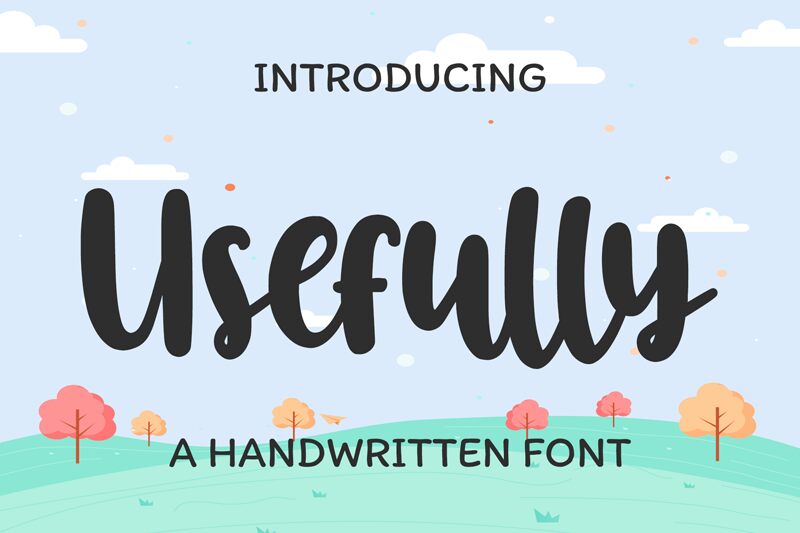
Usefully
Usefully, the newest creation from Bearytype, is a bold handwritten font that exudes energy and personality. Perfect for an array of projects, this typeface is ideal for making impactful statements in headlines and titles, while its legibility ensures it can be used in body copy as well. Its bold weight makes it suitable for designs that require emphasis and strength, such as logos or packaging design. Usefully adds a touch of playfulness to any project, making it perfect for greeting cards, invitations or anything that requires a personal touch. Get creative with Usefully!